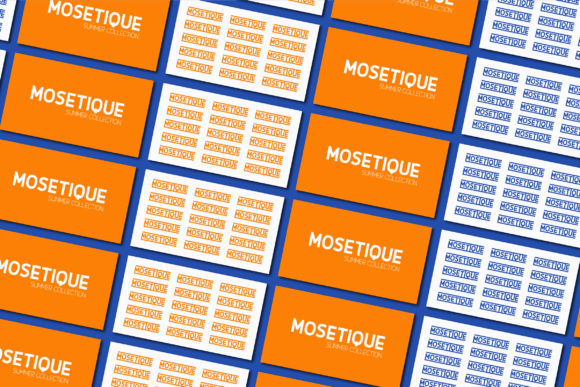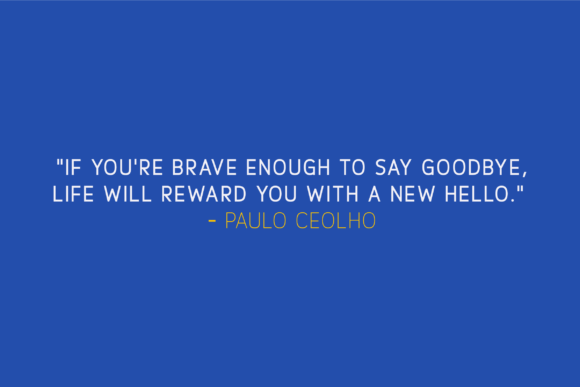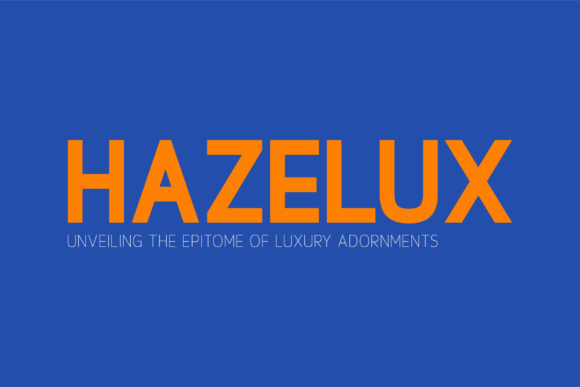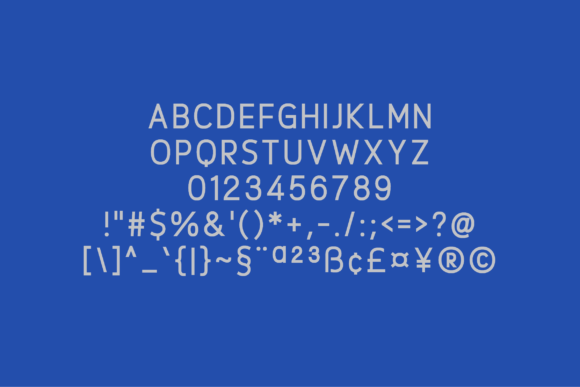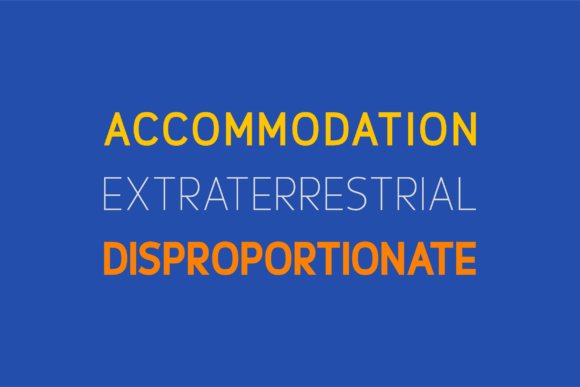
Introduction to Kontrustive Font
the Kontrustive is an embodiment of the elegance and minimalism font family.
With 5 distinct weights, this sans-serif collection seamlessly combines modernity and luxury Crafted with utmost precision, it effortlessly enhances any project, whether it be a magazine, logo, or film poster.
Key Features of Kontrustive Font